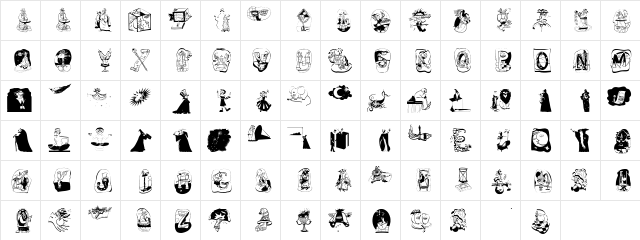
MagicActs Regular
Design Context for MagicActs Typeface
MagicActs is a composed and adaptable typeface that performs quietly and consistently across a wide range of design contexts.